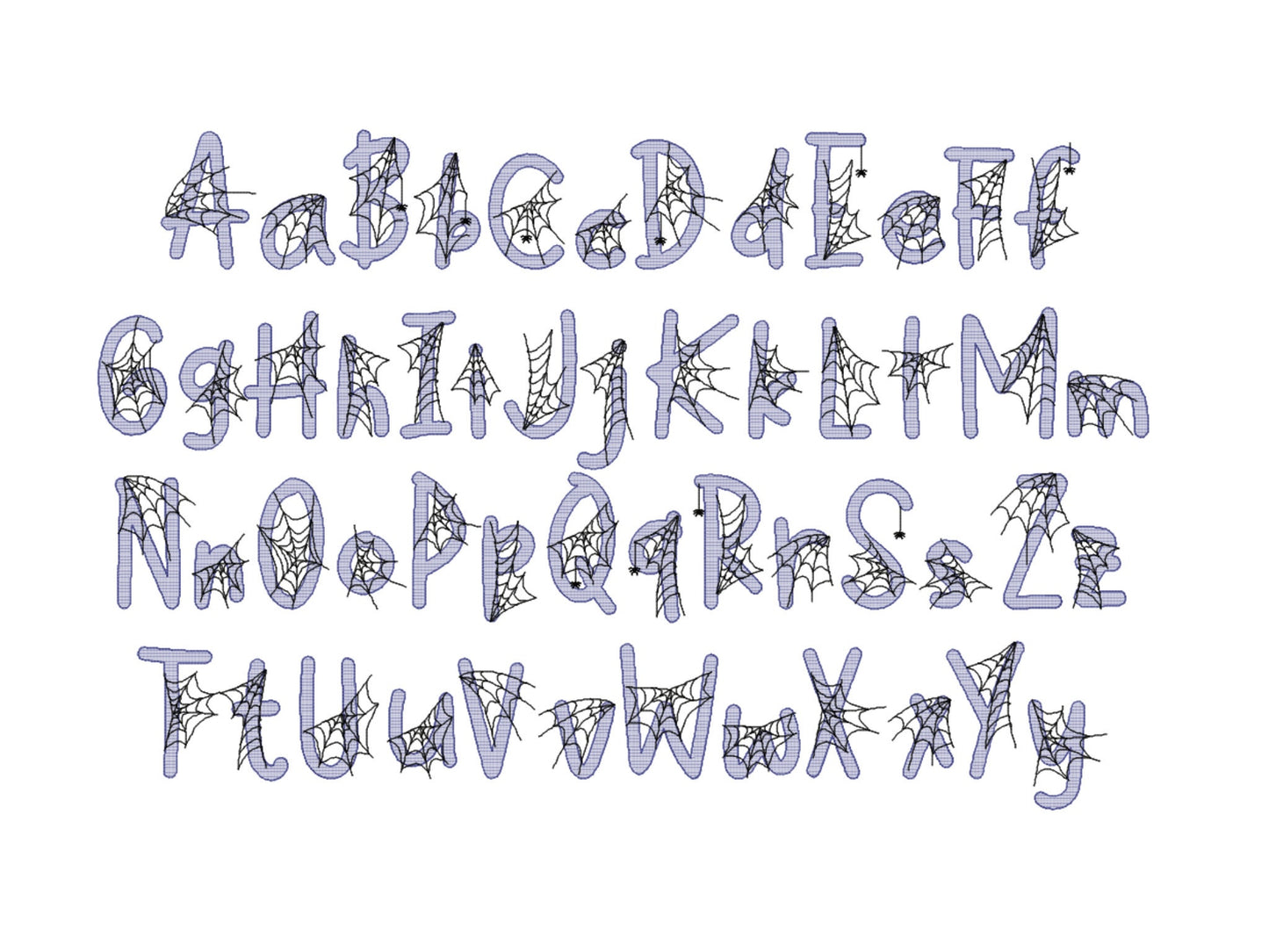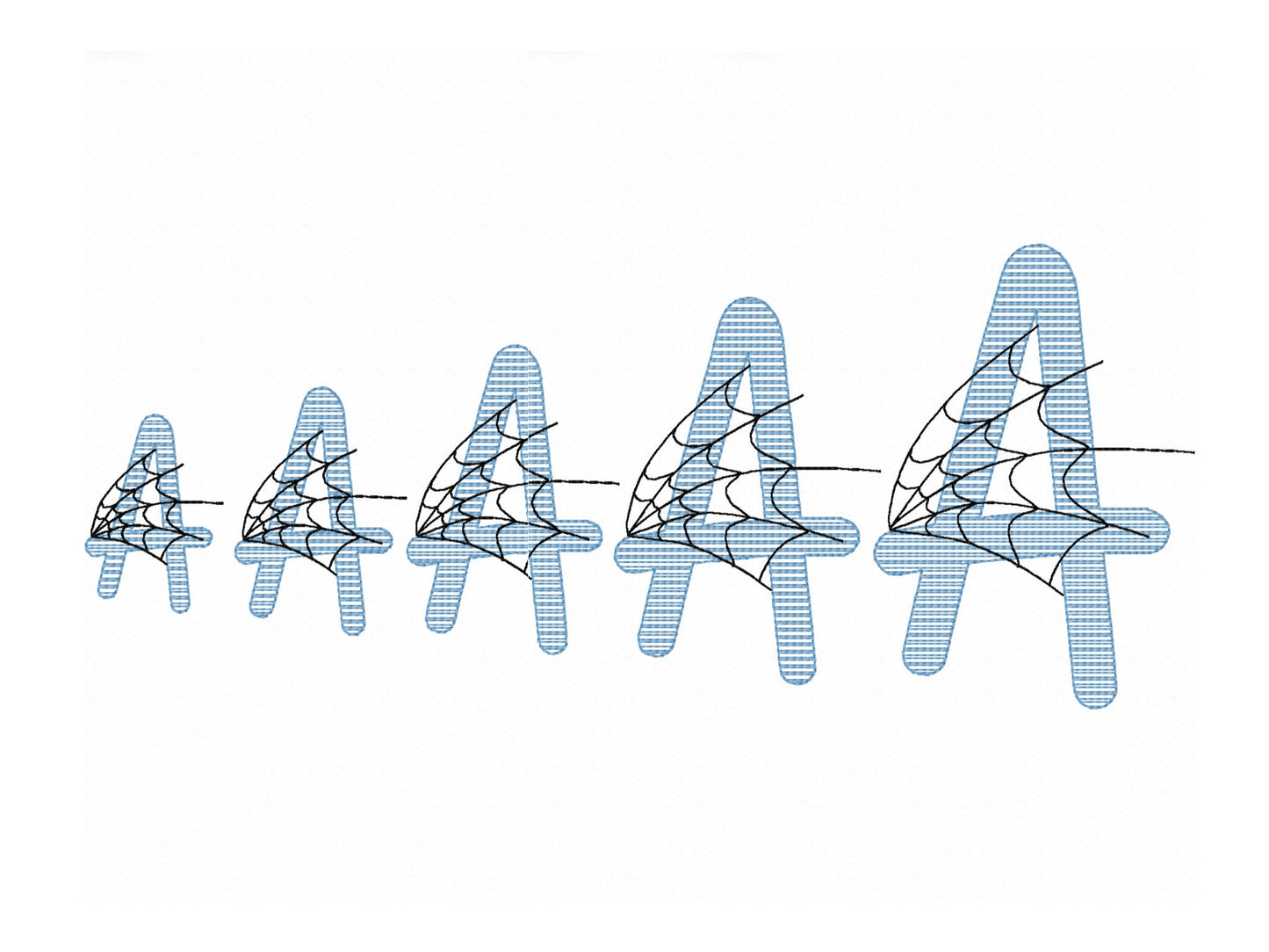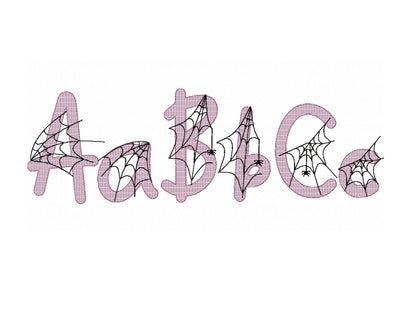
Or click to open the linkA spider web Halloween font, for spooky names and 'BOO' on shirts, trick-or-treat bags and pillows.
A light stitch design: the spider web pattern is part of the letters and the fabric shows through. Uppercase and lowercase letters in five sizes: 2, 2.5, 3.5, 4 and 5 inches.